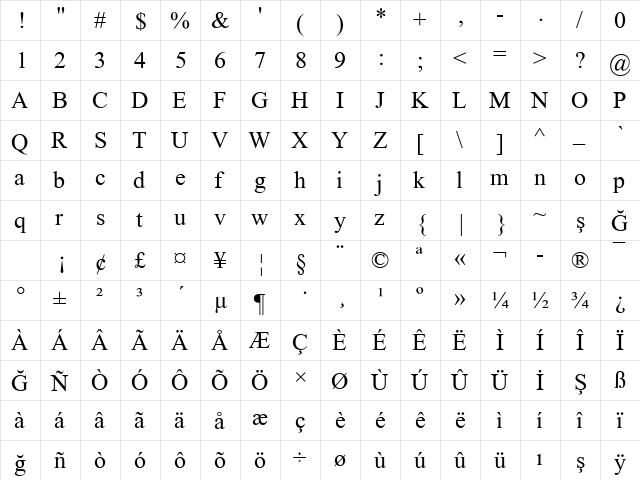
Times2 New Roman Regular Turkce
Design Context for Times2 New Roman Typeface
Times2 New Roman is a composed and adaptable typeface that performs quietly and consistently across a wide range of design contexts.